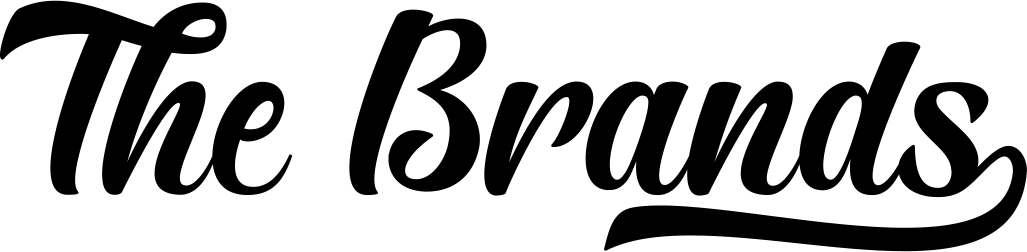
The Brands Font
This old-school font can bring your words into the real world! The Brands is designed with handwritten and continuous elements and the reader can get a friendly, approachable, and nostalgic feeling from it. You can use it to design family event banners and flyers, retro illustrations, motivational quotes, school banners, and personal channel covers. The character set only includes uppercase and lowercase alphabetical letters.
Features : swash, ligatures, stylisticset